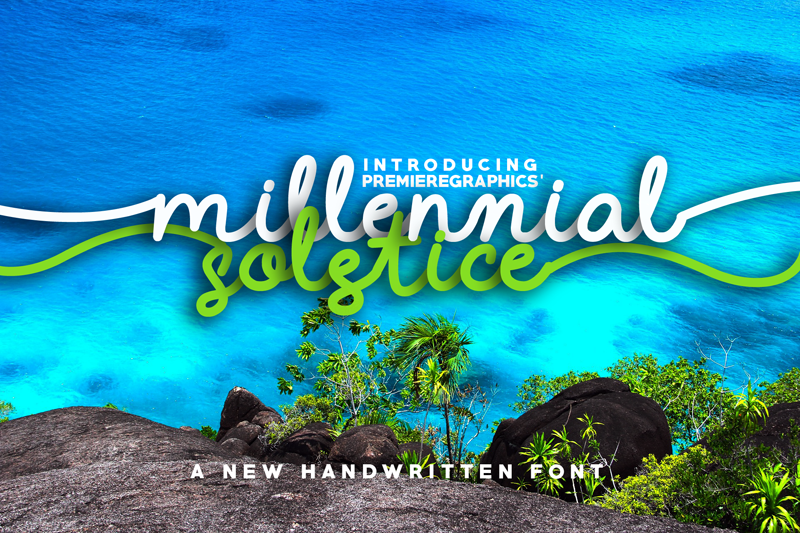
Millennial Solstice
Millennial Solstice is just in time for a new graphic design! This cursive font is carefully handwritten for a perfect typographic style you want. Its smooth and bold texture is very readable and is great for banners, headers, photographs, logo and branding, product packaging and etc.